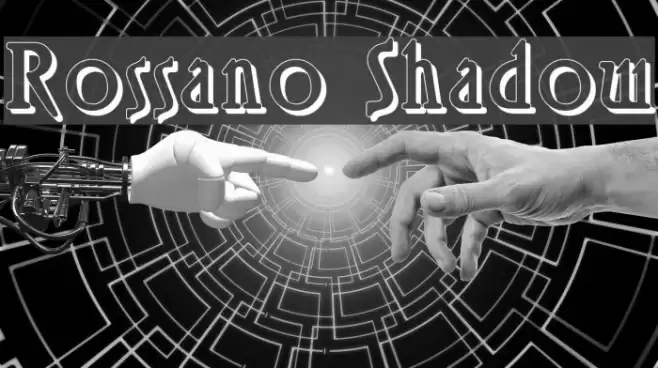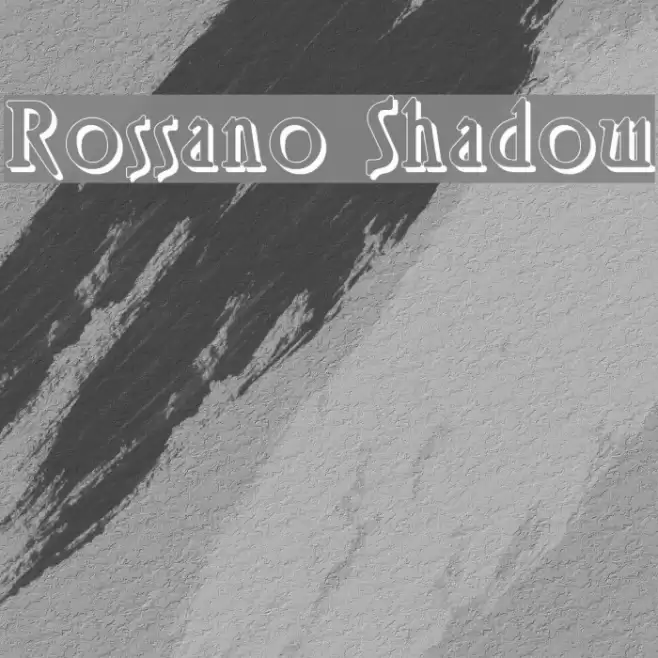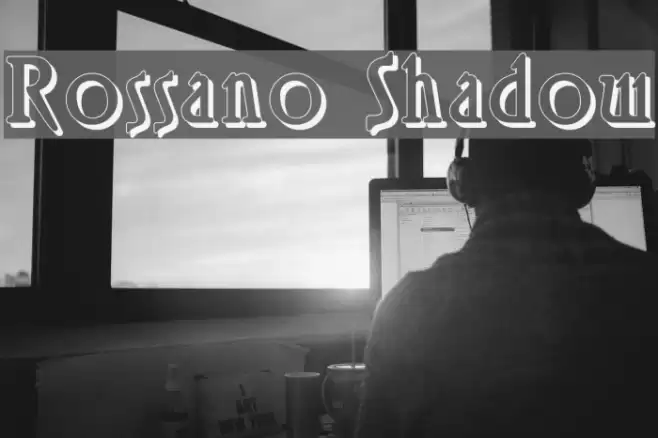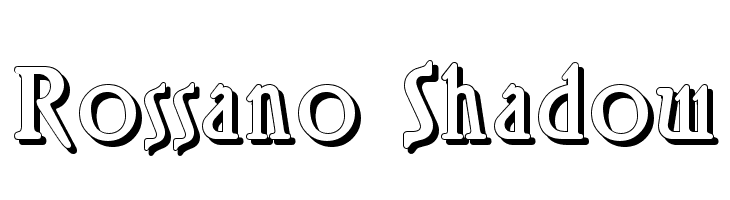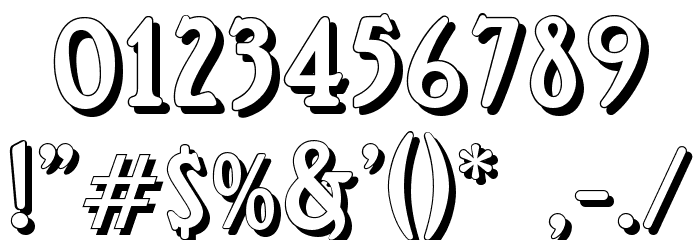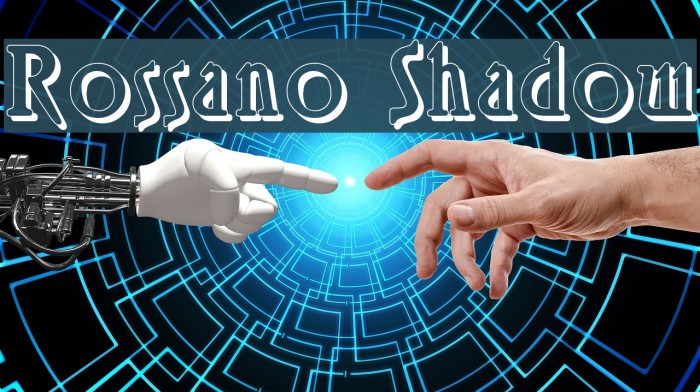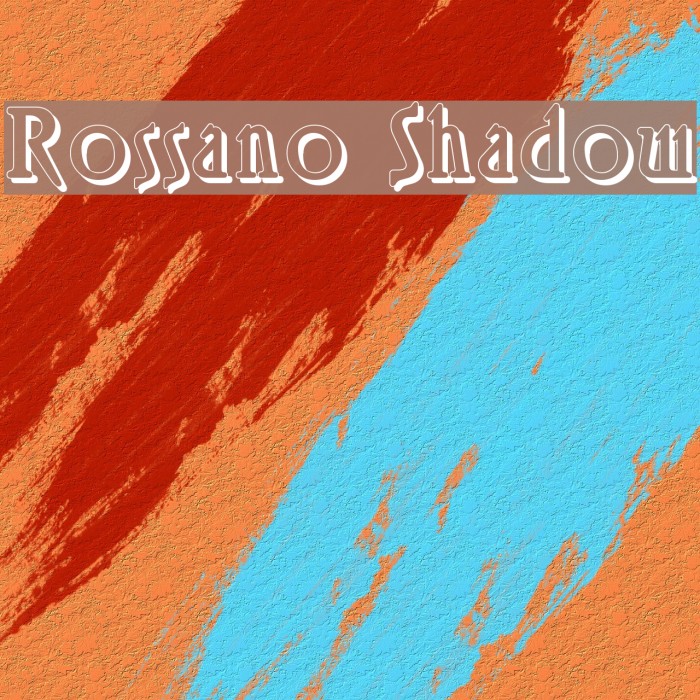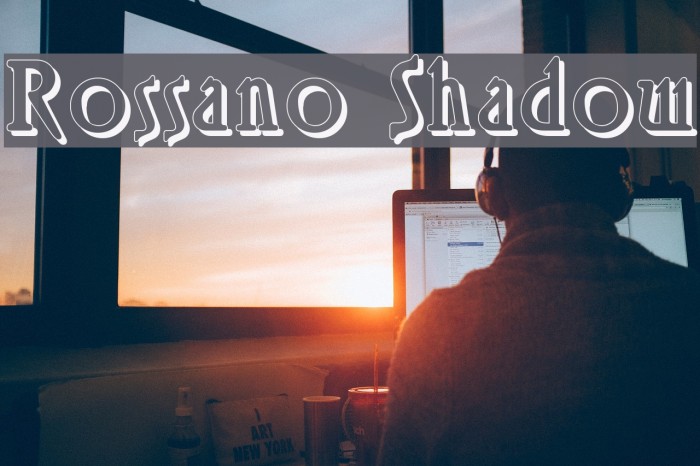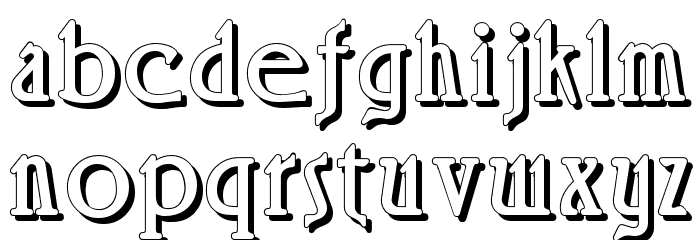
Rossano Shadow Font
Rossano Shadow Description
This font features a bold and dynamic style with a distinct shadow effect that gives it a three-dimensional appearance. The uppercase and lowercase letters are designed with sharp, angular edges, creating a sense of movement and energy. The numbers and special characters maintain this bold aesthetic, ensuring consistency across all elements. The shadow adds depth, making the characters stand out prominently. This font is ideal for projects that require a strong visual impact, such as posters, headlines, and logos. Its unique style captures attention and conveys a sense of boldness and creativity.
A bold, shadowed font with a dynamic, three-dimensional appearance from Uncategorized fonts.
- Proposed Projects: Ideal for posters, headlines, logos, and any design needing a strong visual impact.